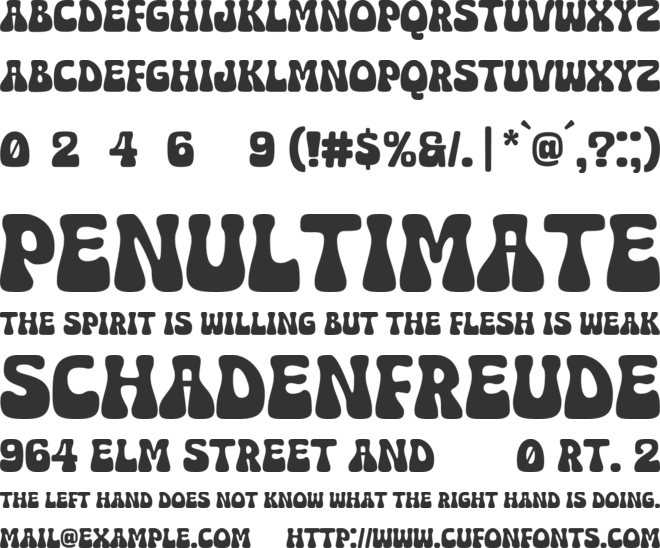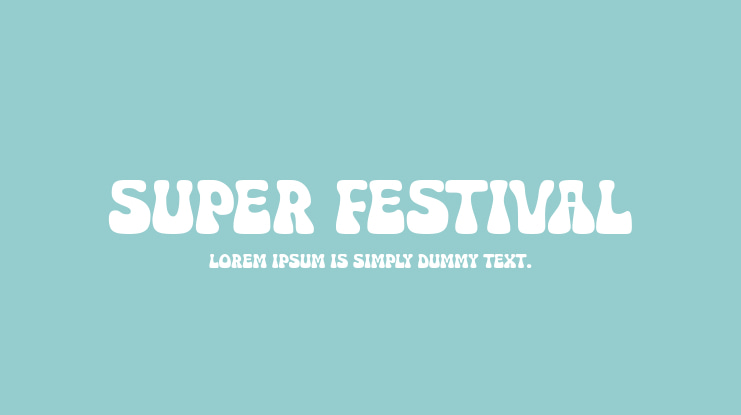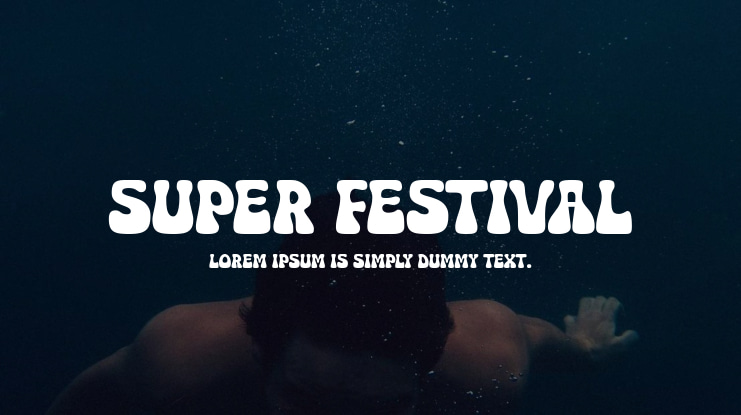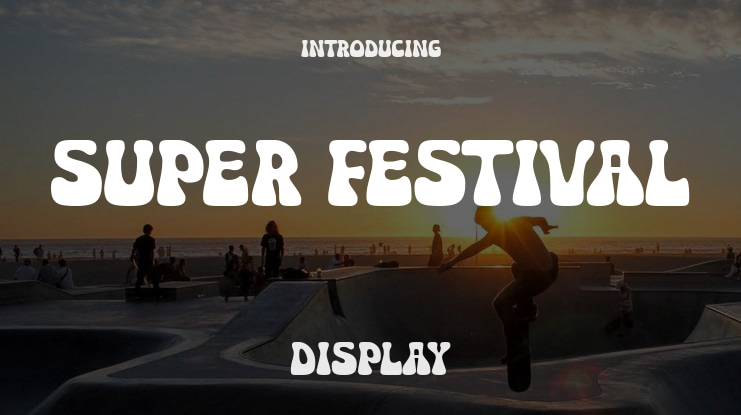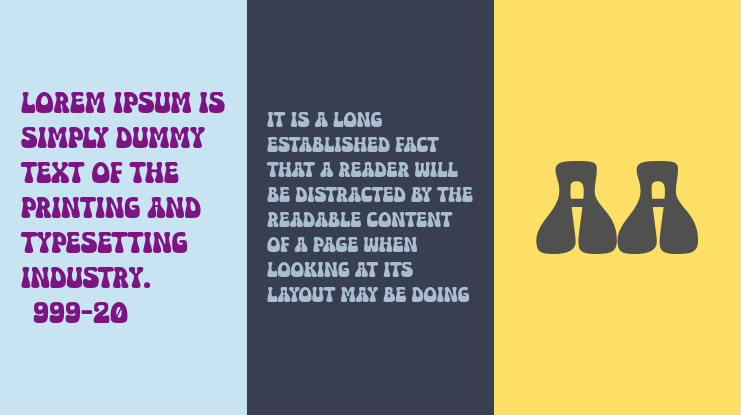
Super Festival Font
This font is for PERSONAL USE ONLY!.If you want to use this font for commercial purposes, you will need to purchase a commercial license. You can purchase a commercial license at https://allsuperfont.com/product/super-festival/Introducing Super Festival: A Groovy Blast from the PastSuper Festival is a font that captures the vibrant energy and nostalgia of the retro era. It blends the coolness of groovy fonts with the boldness of boxy typography, creating a unique look thats perfect for eye-catching designs.